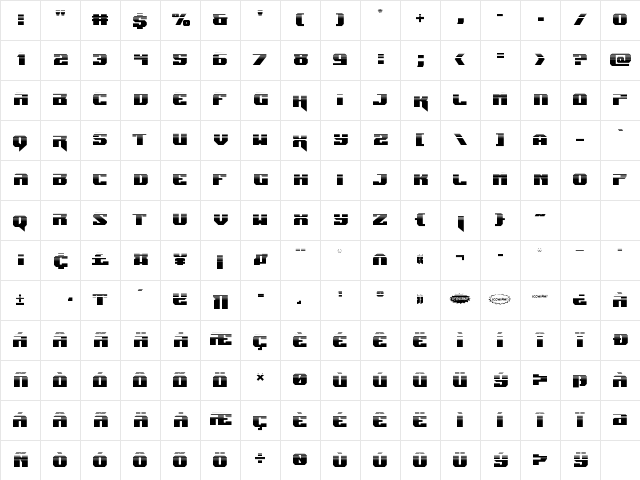
Jumpers Halftone Regular Free Font
Jumpers Halftone Regular
Jumpers Halftone Family
Complete Jumpers Halftone Regular glyph index. Displaying only characters natively supported by Jumpers Halftone Regular font.
Design Context for Jumpers Halftone
Jumpers Halftone is a composed and adaptable typeface that performs quietly and consistently across a wide range of design contexts.